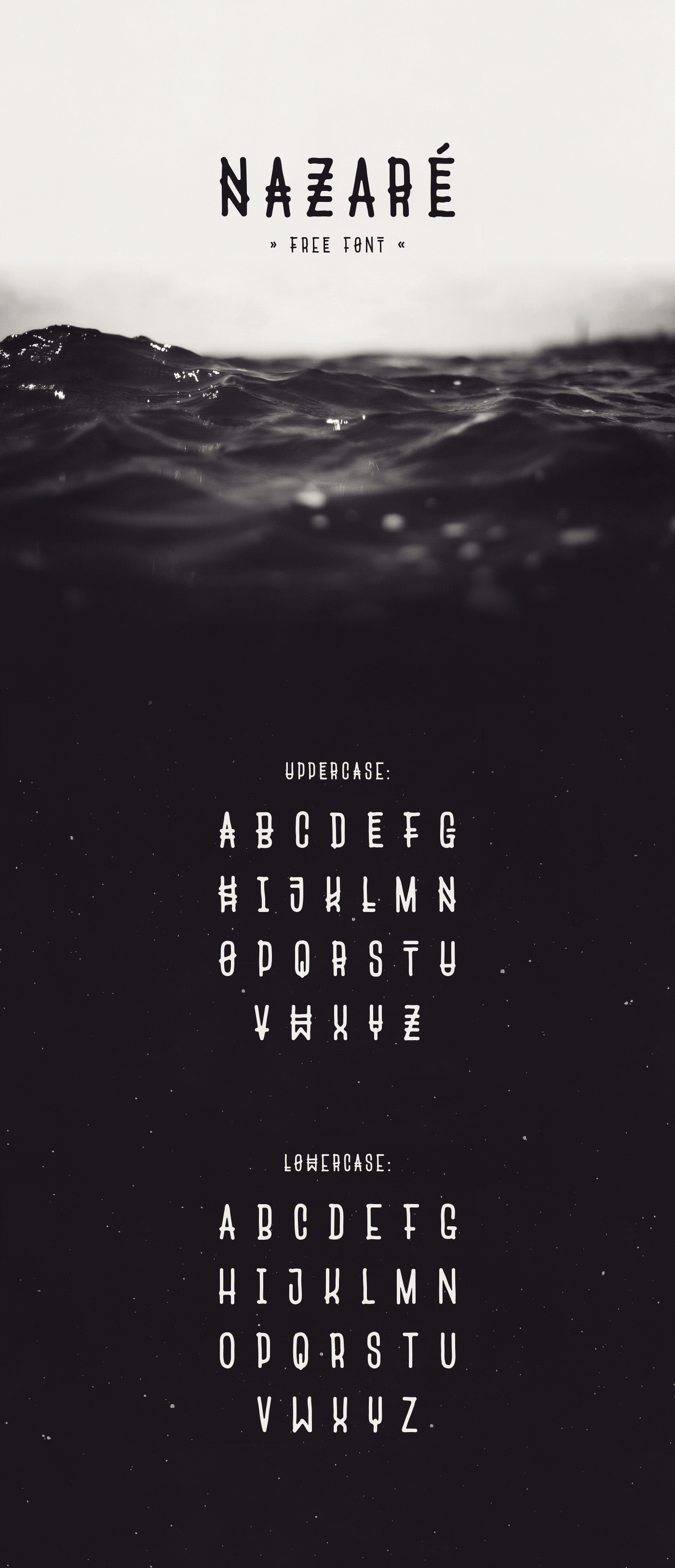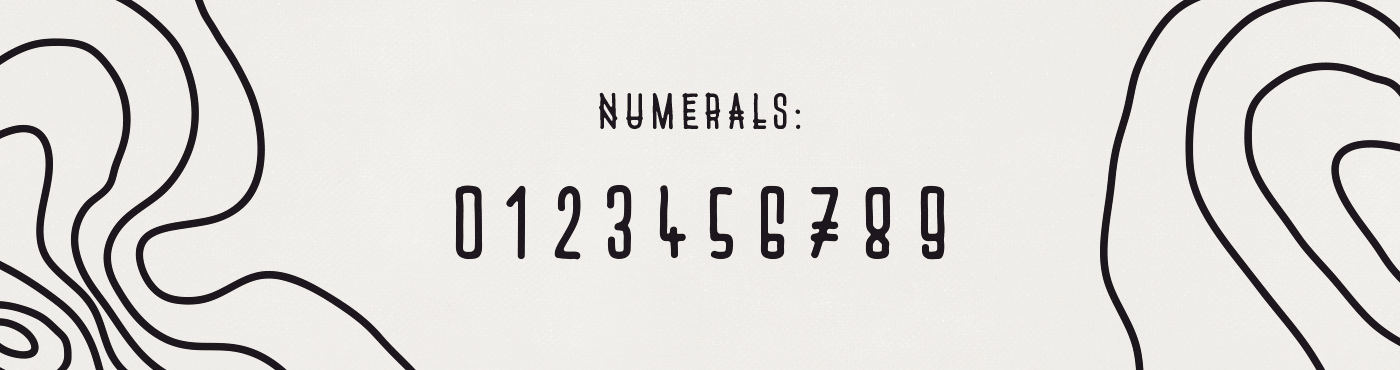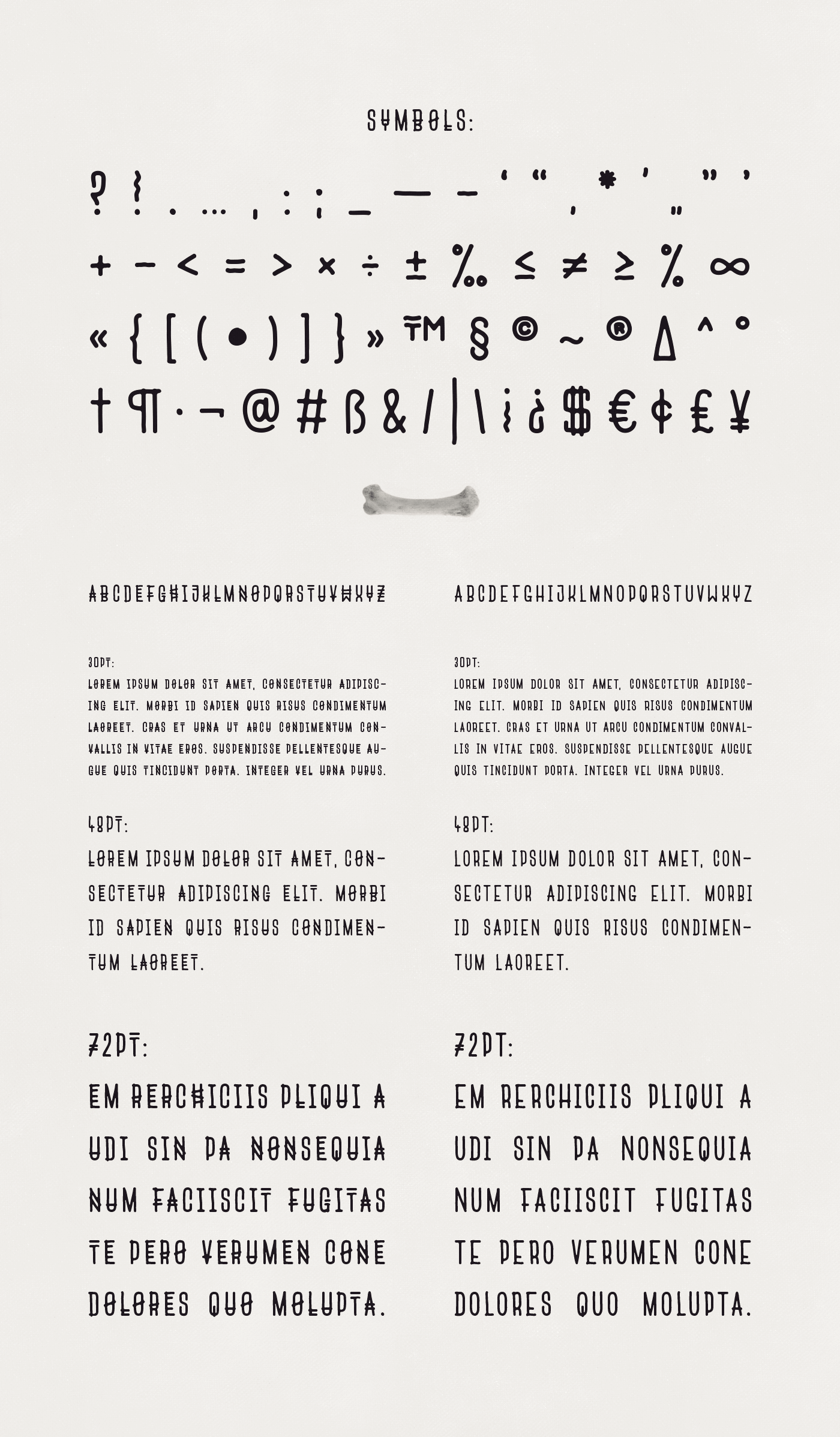
Nazaré the free font inspired in the Portuguese town with the same name where the big waves rule
Nazaré the free font inspired in the Portuguese town with the same name where the big waves rule. As a Portuguese I was quite happy to discover this free font created by an Hungarian who really catched the nature feeling of this place. This small fisherman’s town for years was unknown to the rest of the world, until the world famous surfer Garrett McNamara came attracted by one of the biggest waves in the world.
In November 2011, chasing storms and tracking swells paid off for McNamara as he entered the Guinness World Records. He caught a 78 foot (24 m) wave in Nazaré, Portugal after being towed into the wave from a jet ski riding a 6’0 Dick Brewer Tow Board.
In January 2013, McNamara broke his own world record by surfing an estimated 100-foot (30 m) wave. He also did this off the coast of Nazaré, Portugal.
[arve url=”https://www.youtube.com/embed/OgDtRmSCxBg?list=PLunWUan3_gN7ghp_-CaYzekElMczVm0Gl” title=”The waves at Praia do Norte, Nazaré,”/]Nowadays Nazaré is a world respected surf spot specially for the big wave surfers, David Szebenyi inspired on this town created this font. It’s condensed, all in caps it comes in two versions for lower and uppercase, made with hand drawn lines, some round forms and as the author refers, a bit of tribal touch.
Nazaré free font
Nazaré free font symbols